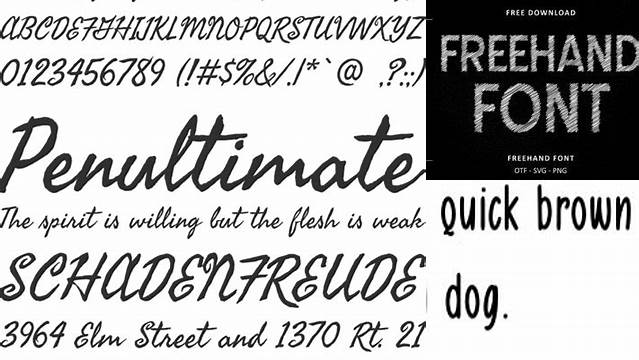
Quickly Freehand Fonts: Free Downloads & Guide
Hey guys! Ever wanted to add a personal, hand-drawn touch to your projects? Well, you're in luck! We're diving deep into the world of quickly freehand fonts, and the best part? We're focusing on the free options! This guide will explore everything from what makes a font truly "freehand" to where you can snag some awesome ones without breaking the bank. So, buckle up and let's get started!
1. Understanding Freehand Fonts
Before we jump into grabbing freehand fonts, let's understand what they are. Freehand fonts mimic the look of handwriting or drawing done by hand. They often feature imperfect lines, varying stroke widths, and a generally less polished appearance than more formal typefaces. This gives them a unique charm and makes them perfect for adding a personal touch to designs. Think about invitations, posters, logos, and even website headers. A good freehand font can make all the difference, giving your project that authentic, human feel. They can range from elegant script styles to playful, scribbled fonts, catering to a wide range of aesthetic preferences.
2. Benefits of Using Freehand Fonts
Why should you even bother with freehand fonts? Well, for starters, they can inject personality into your projects like nothing else. In a world of perfectly aligned, sterile designs, a freehand font stands out by being, well, imperfect. This imperfection is precisely what makes them so appealing. They create a sense of authenticity and warmth, making your audience feel more connected to your message. Furthermore, using a freehand font can help your design grab attention, especially when used sparingly and strategically. Imagine a website with a clean, modern design that incorporates a hand-drawn heading β it instantly adds a layer of visual interest and makes the site more memorable. So, if you're looking to add some flair and a human touch, freehand fonts are definitely worth exploring.
3. Where to Find Quickly Freehand Fonts for Free
4. Google Fonts: A Great Resource for Freehand Fonts
5. DaFont: A Treasure Trove of Quickly Freehand Font Free
6. Font Squirrel: Quality Quickly Freehand Fonts
7. Creative Fabrica Freebies for Quickly Freehand Fonts
Creative Fabrica is known for its premium design resources, but they also offer a section of freebies that often includes quickly freehand fonts. These freebies are usually available for a limited time, so it's worth checking back regularly to see what's new. The quality of the free fonts on Creative Fabrica is generally very high, as they're often created by professional designers. However, make sure to read the license agreement carefully, as the terms of use may vary. Sometimes, the freebies are only available for personal use, or they may have other restrictions. But if you're lucky enough to snag a freehand font that suits your needs, it can be a great way to add a touch of professionalism to your projects without spending any money. Keep an eye on Creative Fabrica β you never know what gems you might find!
8. Understanding Font Licensing for Quickly Freehand Fonts
Okay, this is crucial: understanding font licensing is non-negotiable when dealing with quickly freehand fonts. Just because a font is available for download doesn't automatically mean it's free for all uses. Different fonts come with different licenses, and it's your responsibility to understand the terms before using them. Some fonts are free for personal use but require a commercial license for business projects. Others might be free for commercial use but with certain restrictions, like a requirement to credit the designer. Always look for the license information (usually in a text file included with the font download) and read it carefully. If you're unsure about anything, it's always best to err on the side of caution and contact the font designer directly to clarify. Ignoring font licenses can lead to legal trouble, so don't skip this step!
9. Quickly Freehand Fonts for Personal Use
If you're just looking for quickly freehand fonts for personal projects β like invitations for a birthday party or a fun graphic for your social media profile β you have a lot more flexibility. Many fonts are free for personal use, even if they require a commercial license for business applications. This means you can experiment with different styles and add a personal touch to your creations without worrying about copyright infringement. However, it's still a good idea to double-check the license agreement, just to be safe. And if you end up using a font you really love, consider purchasing a commercial license if you later decide to use it in a professional project. Supporting font designers helps them continue to create awesome resources for everyone to enjoy!
10. Quickly Freehand Fonts for Commercial Use
Using quickly freehand fonts for commercial projects β like logos, websites, or marketing materials β requires a bit more caution. You need to make sure that the font is explicitly licensed for commercial use, meaning you have the right to use it for profit-generating activities. Many free font websites offer filters that allow you to search specifically for fonts with commercial licenses. Look for terms like "100% free for commercial use" or "open-source license." If you're unsure, contact the font designer or the website hosting the font to clarify. Remember, using a font without the proper license can lead to legal consequences, so it's always better to be safe than sorry.
11. Tips for Choosing the Right Quickly Freehand Font
Choosing the right quickly freehand font can make or break your design. Here are a few tips to help you make the right choice. First, consider the overall tone and message of your project. Are you going for playful and whimsical, or elegant and sophisticated? Choose a font that reflects the desired mood. Second, think about readability. While freehand fonts are often less legible than more formal typefaces, you still want your text to be easily readable. Avoid fonts with overly complex or distorted letterforms. Third, consider the context in which the font will be used. Will it be used for headings, body text, or both? Different fonts are better suited for different purposes. Finally, don't be afraid to experiment! Try out different fonts and see what works best for your project.
12. Pairing Quickly Freehand Fonts with Other Fonts
Quickly freehand fonts are often best used in conjunction with other fonts, rather than as the sole typeface in a design. Pairing a freehand font with a clean, simple sans-serif font can create a visually appealing contrast. For example, you could use a freehand font for headings and a sans-serif font for body text. This allows the freehand font to stand out and add personality, while the sans-serif font ensures readability. When choosing fonts to pair with a freehand font, look for fonts that complement its style and tone. Avoid fonts that are too similar or too different, as this can create a jarring effect. Experiment with different combinations until you find something that works well together.
13. How to Install Quickly Freehand Fonts
Installing quickly freehand fonts is usually a pretty straightforward process. On Windows, simply download the font file (usually a .ttf or .otf file), right-click on the file, and select "Install." The font will then be installed on your system and available for use in all your applications. On macOS, you can either double-click the font file and then click "Install Font" in the Font Book app, or you can drag the font file directly into the Font Book app. Once the font is installed, you should be able to access it from the font menu in your favorite design software. If you're having trouble installing a font, try restarting your computer or clearing your font cache. Sometimes, the operating system needs a little nudge to recognize the new font.
14. Troubleshooting Issues with Quickly Freehand Fonts
Sometimes, you might encounter issues with quickly freehand fonts. For example, the font might not display correctly in your software, or it might look pixelated or distorted. Here are a few troubleshooting tips. First, make sure that the font is properly installed. Try reinstalling it or restarting your computer. Second, check the font size. Some freehand fonts are designed to be used at larger sizes, and they might not look good at smaller sizes. Third, try clearing your font cache. This can sometimes resolve display issues. Fourth, make sure that your software supports the font format (e.g., .ttf or .otf). Finally, if all else fails, try contacting the font designer or the website where you downloaded the font for assistance.
15. Designing Logos with Quickly Freehand Fonts
Quickly freehand fonts can be a great choice for logo design, especially if you want to create a logo that feels personal, unique, and handmade. A freehand font can add a touch of authenticity and charm to your logo, making it stand out from the crowd. When using a freehand font for a logo, consider the overall brand identity. Does the font align with the brand's values and target audience? Also, think about scalability. Will the logo look good at different sizes? Some freehand fonts might become illegible at smaller sizes, so it's important to choose a font that is versatile. Finally, make sure that the logo is memorable and easy to recognize. A good logo should be instantly identifiable, even at a glance.
16. Creating Invitations with Quickly Freehand Fonts
Quickly freehand fonts are perfect for creating invitations that feel personal and special. Whether you're designing invitations for a wedding, a birthday party, or a baby shower, a freehand font can add a touch of warmth and personality. When choosing a freehand font for invitations, consider the overall theme and tone of the event. A formal event might call for an elegant script font, while a casual event might be better suited to a playful, handwritten font. Also, think about readability. Make sure that the text is easy to read, especially for important details like the date, time, and location. Finally, don't be afraid to get creative with colors, illustrations, and other design elements to create invitations that are truly unique.
17. Using Quickly Freehand Fonts in Web Design
Using quickly freehand fonts in web design can add a touch of personality and visual interest to your website. However, it's important to use them sparingly and strategically. Overusing freehand fonts can make your website look cluttered and unprofessional. A good approach is to use a freehand font for headings or accents, and a more formal font for body text. This allows the freehand font to stand out without compromising readability. Also, consider the loading time of the font. Some freehand fonts can be quite large, which can slow down your website's loading speed. Optimize your fonts for web use to ensure that your website loads quickly and smoothly.
18. Quickly Freehand Fonts for Social Media Graphics
Quickly freehand fonts are a great way to make your social media graphics stand out. A freehand font can add a personal touch to your posts, making them more engaging and memorable. Whether you're creating graphics for Instagram, Facebook, or Twitter, a freehand font can help you capture attention and communicate your message effectively. When choosing a freehand font for social media graphics, consider the platform you're using. Different platforms have different design aesthetics, so it's important to choose a font that is appropriate for the platform. Also, think about the size and format of your graphics. Make sure that the font is legible at different sizes and that it looks good on different devices.
19. Creating Posters with Quickly Freehand Fonts
Quickly freehand fonts can be a fantastic choice for designing posters, especially if you're aiming for a handmade or artistic look. The unique character of a freehand font can instantly make your poster more eye-catching and memorable. Whether you're creating a poster for a concert, a movie, or a community event, a freehand font can help you communicate your message in a creative and engaging way. However, it's essential to consider readability, particularly if your poster will be viewed from a distance. Choose a freehand font that is clear and legible, even at larger sizes. Experiment with different font sizes, colors, and placements to achieve the desired visual impact.
20. Quickly Freehand Fonts and Branding: A Unique Touch
When it comes to branding, quickly freehand fonts can offer a unique and memorable touch. Using a freehand font in your branding can help you convey a sense of personality, authenticity, and creativity. However, it's crucial to use freehand fonts strategically and in alignment with your brand's overall identity. A freehand font might be perfect for a brand that wants to project a friendly, approachable image, but it might not be the best choice for a brand that wants to convey a sense of professionalism and authority. Consider your target audience, your brand's values, and the overall message you want to communicate when choosing a freehand font for your branding.
21. The Psychology Behind Quickly Freehand Fonts
There's a certain psychology behind why quickly freehand fonts resonate with people. They evoke a sense of nostalgia, warmth, and personal connection. In a digital world that often feels impersonal and sterile, a freehand font can offer a refreshing dose of humanity. Freehand fonts can also create a sense of informality and approachability, making your message more relatable and engaging. However, it's important to consider the context in which you're using a freehand font. A freehand font might not be appropriate for every situation, particularly in formal or professional settings where a more serious tone is required. Understanding the psychology behind freehand fonts can help you use them effectively to communicate your message and connect with your audience.
22. Quickly Freehand Fonts in Different Design Styles
Quickly freehand fonts can be incorporated into a variety of design styles, from minimalist to maximalist. In a minimalist design, a freehand font can add a touch of personality and warmth without overwhelming the overall aesthetic. In a maximalist design, a freehand font can contribute to the overall sense of richness and visual complexity. The key is to choose a freehand font that complements the other elements of the design and enhances the overall message. Experiment with different font sizes, colors, and placements to achieve the desired effect. Don't be afraid to mix and match freehand fonts with other typefaces to create a unique and visually interesting design.
23. Combining Quickly Freehand Fonts with Illustrations
Combining quickly freehand fonts with illustrations can create a visually compelling and engaging design. The combination of hand-drawn typography and hand-drawn illustrations can convey a sense of authenticity, creativity, and personality. When combining freehand fonts with illustrations, consider the overall style and tone of the design. Choose illustrations that complement the freehand font and enhance the overall message. Experiment with different color palettes, textures, and layouts to create a design that is visually appealing and effective. Don't be afraid to break the rules and try new things β the possibilities are endless!
24. The Evolution of Quickly Freehand Fonts
The evolution of quickly freehand fonts is an interesting journey. From traditional calligraphy to modern digital designs, freehand fonts have evolved to meet the changing needs of designers and artists. Early freehand fonts were often based on the handwriting of skilled calligraphers and scribes. These fonts were carefully crafted and refined to create a sense of elegance and sophistication. As technology advanced, freehand fonts became more accessible and versatile. Designers began to experiment with different styles, techniques, and tools to create a wider range of freehand fonts. Today, freehand fonts are used in a variety of applications, from branding to web design to social media graphics.
25. Quickly Freehand Fonts for Beginners: A Simple Start
If you're a beginner, using quickly freehand fonts can seem a bit daunting at first. But don't worry, it's easier than you think! Start by exploring different free font websites and experimenting with different styles. Choose a few freehand fonts that you like and try using them in simple design projects. Practice pairing freehand fonts with other typefaces to create visually appealing combinations. Don't be afraid to make mistakes and learn from them. The more you experiment, the more confident you'll become in using freehand fonts effectively. Remember, the key is to have fun and let your creativity shine!
26. Mastering the Art of Quickly Freehand Font Usage
Mastering the art of quickly freehand font usage takes time and practice. It's not just about choosing a pretty font β it's about understanding how to use it effectively to communicate your message and connect with your audience. Pay attention to details like font size, spacing, and color. Experiment with different layouts and compositions to create visually appealing designs. Study the work of other designers who use freehand fonts well and learn from their techniques. Seek feedback from your peers and mentors to improve your skills. With dedication and perseverance, you can become a master of freehand font usage and create stunning designs that captivate and inspire.
27. Quickly Freehand Fonts and Readability: Finding the Balance
Quickly freehand fonts can add personality to a design, but readability is key. Finding the balance between style and clarity is crucial. Choose fonts that are still easy to read, even with their unique flair. Avoid overly decorative or distorted fonts that can strain the eyes. Consider the font size and spacing to ensure that the text is legible, especially for body text. Test your designs with different users to get feedback on readability. A beautiful font is useless if no one can read it.
28. The Future Trends in Quickly Freehand Fonts
What's next for quickly freehand fonts? We can expect to see more innovative and experimental designs that push the boundaries of traditional typography. Expect a rise in variable fonts that offer greater flexibility and customization. AI and machine learning may play a role in generating new and unique freehand fonts. Designers will continue to explore new ways to combine freehand fonts with other design elements to create visually stunning and engaging experiences. The future of freehand fonts is bright, and we can't wait to see what comes next!
29. Quickly Freehand Fonts and Accessibility: Considerations
Accessibility matters! When using quickly freehand fonts, consider users with visual impairments. Choose fonts with good contrast and avoid overly thin or decorative strokes. Provide alternative text for images that contain freehand fonts. Use proper semantic HTML to structure your content and make it accessible to screen readers. Test your designs with accessibility tools to identify and fix any potential issues. Making your designs accessible to everyone is not only ethical but also good for business.
30. Quickly Freehand Fonts: Your Creative Toolkit
Quickly freehand fonts are a powerful tool in your creative toolkit. They can add personality, warmth, and authenticity to your designs. By understanding the different types of freehand fonts, their licensing, and how to use them effectively, you can unlock their full potential. Don't be afraid to experiment, break the rules, and let your creativity shine. With freehand fonts, the possibilities are endless. So go out there and create something amazing!